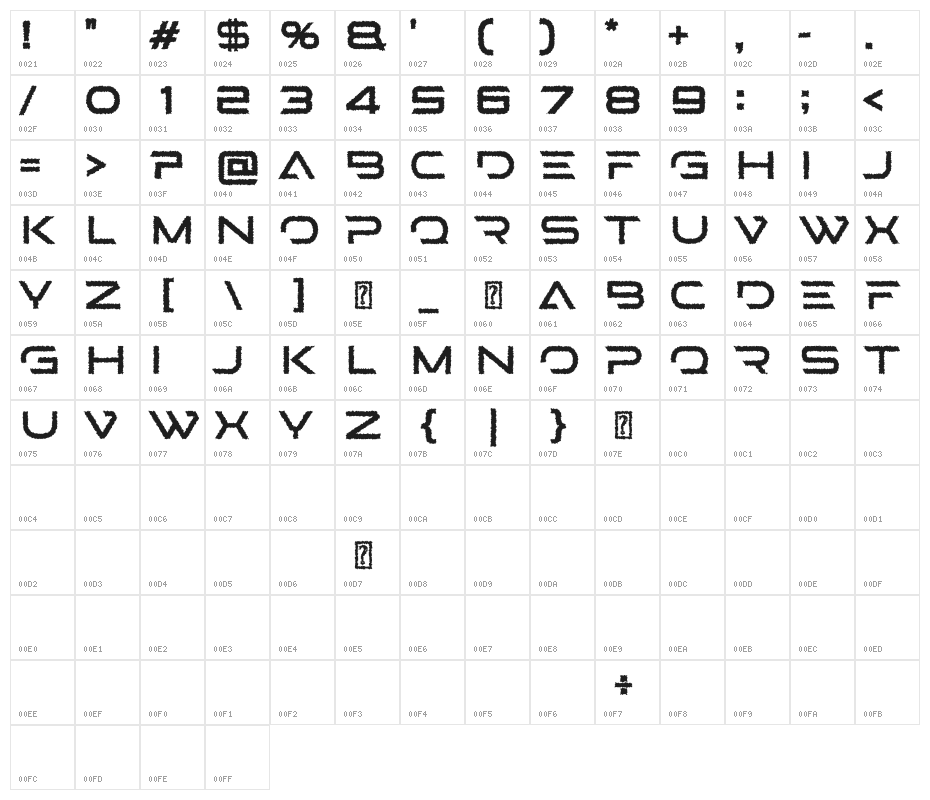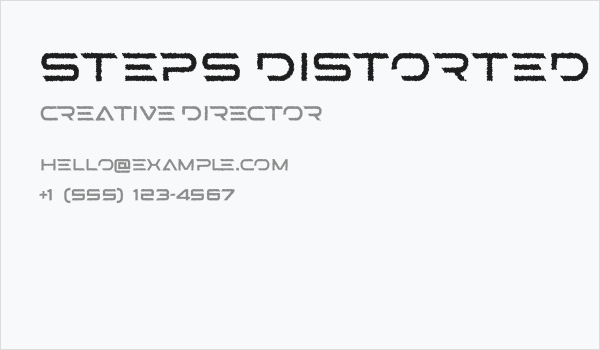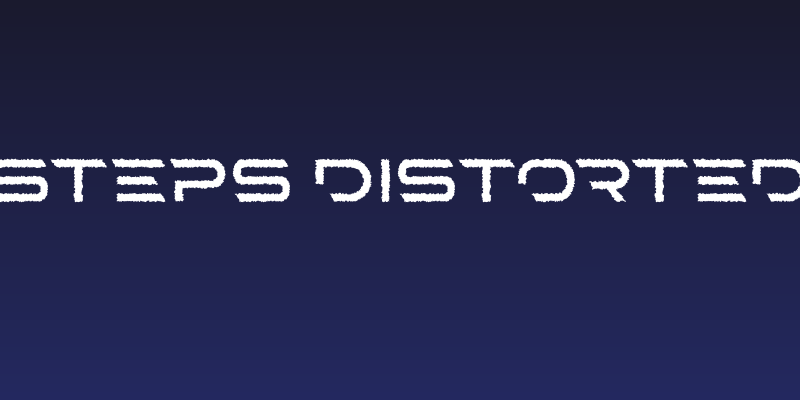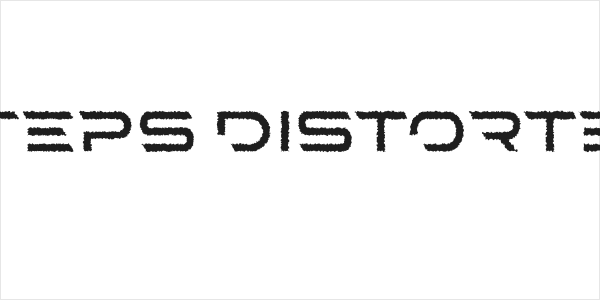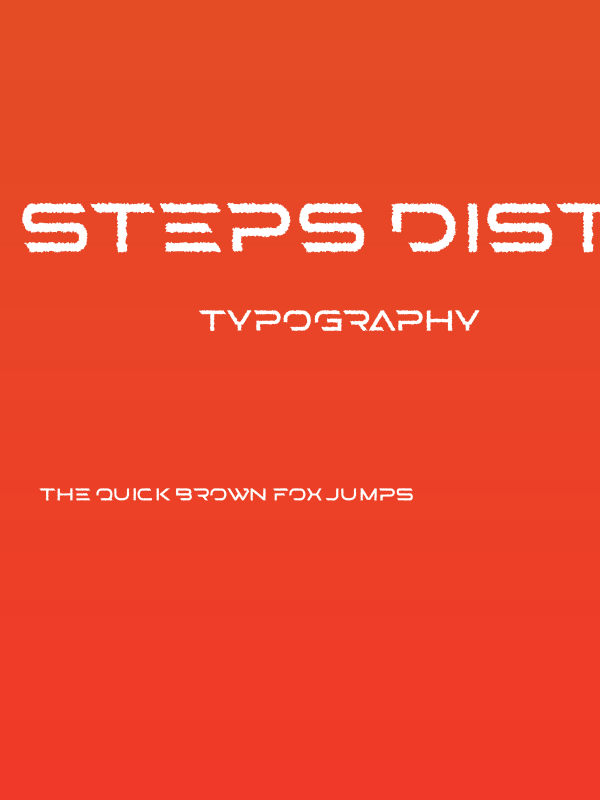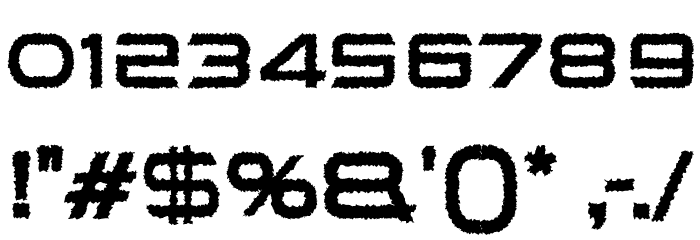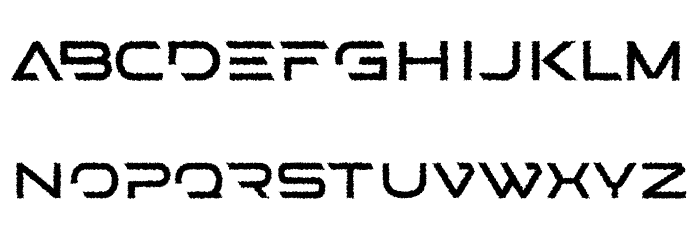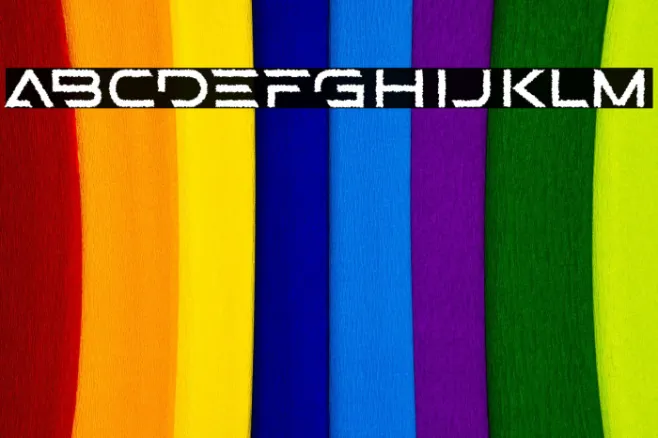
STEPS Distorted Font
STEPS Distorted Description
This font features a unique, distorted style with a modern and edgy appearance. The characters are constructed with a jagged, rough texture that gives them a dynamic and energetic feel. The uppercase and lowercase letters maintain a consistent height, contributing to a uniform look across the text. The numerals and special characters follow the same design principles, ensuring a cohesive appearance throughout. This font's distinctive style makes it ideal for projects that require a bold and unconventional aesthetic.
| Overall Style | Modern, Edgy |
| Proposed Projects | Ideal for music album covers, edgy branding, posters, and creative digital art. |